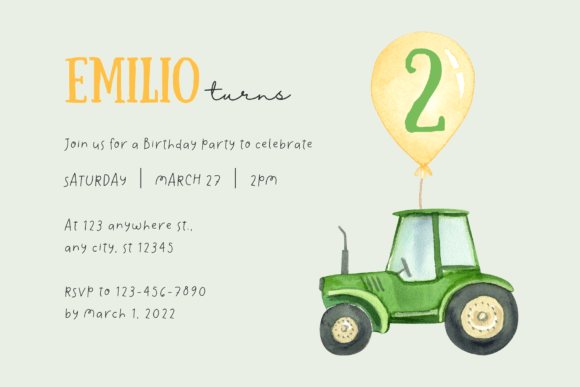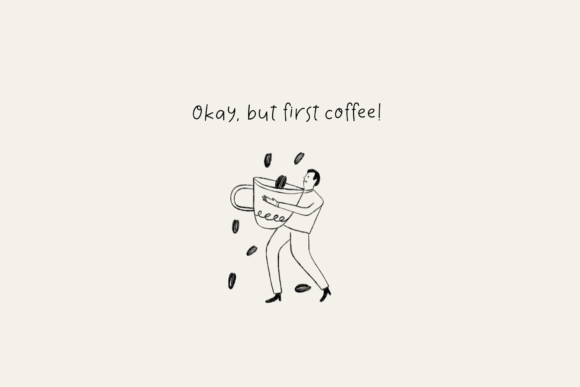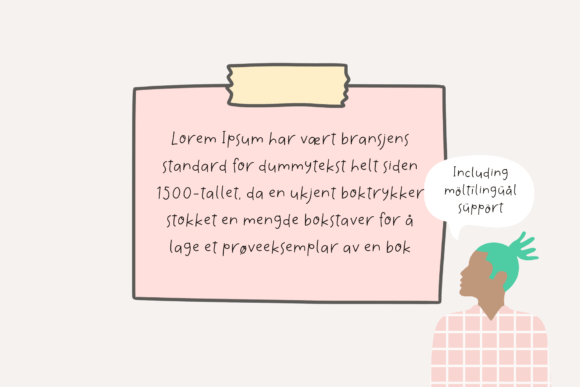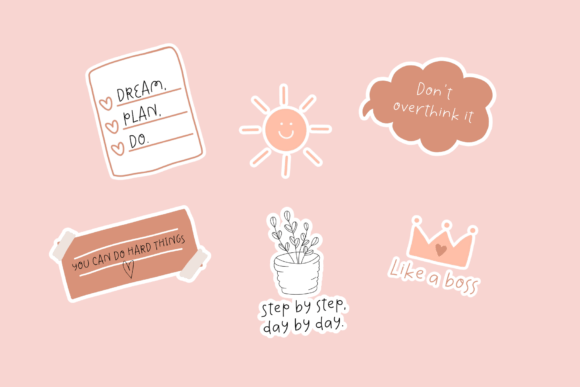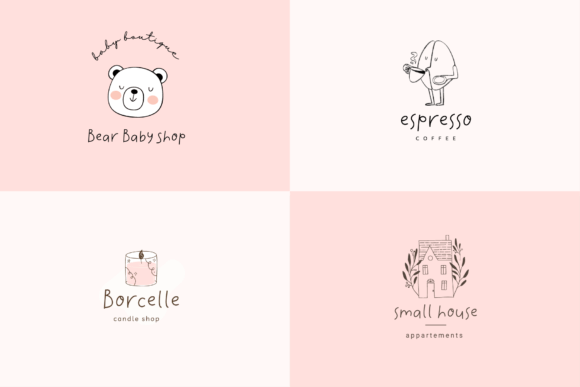
Introduction to Rhodes Memories Font
Have you ever sat down with a blank page, a cup of coffee, and a vision for your next creative project? For many of us, this moment is the spark that sets our imagination ablaze. As we begin to bring our ideas to life, the right design resources can make all the difference. That’s where the Rhodes Memories Font comes in – a delicate handwritten font that adds a touch of warmth and personality to any digital project.
Whether you’re planning a special event, jotting down notes for a new story, or creating invitations for a friend’s birthday, the Rhodes Memories Font is the perfect tool to elevate your design. With its high-quality, transparent background, this font is ideal for designers who want to add a touch of elegance to their work. And the best part? It’s available for free download, making it an accessible resource for creatives of all levels.
Key Features of Rhodes Memories Font
- Unique, vintage-inspired design suitable for various creative projects, including invitations, greeting cards, and scrapbook pages.
Honest Review: Rhodes Memories Font
I recently stumbled upon the Rhodes Memories Font while searching for a unique design resource for a creative project. I was immediately drawn to its elegant and vintage feel, making it perfect for a nostalgic-themed design.
The font offers a free download option, which is always a bonus for designers on a budget. I was able to download the font and use it immediately in my project. The high quality of the font is evident in its crisp lines and smooth curves.
Here are some of the things that work well with the Rhodes Memories Font:
- ✨ Unique and elegant design
- ✨ Perfect for nostalgic-themed designs
- ✨ High-quality images with transparent background
- ⚠️ Limited font styles (only a few options available)
- ⚠️ Not suitable for modern or futuristic designs
Overall, I’m impressed with the Rhodes Memories Font. While it may not be suitable for every design project, it’s a great addition to any designer’s toolkit. With its unique design and high-quality images, it’s definitely worth considering for your next creative project.
Rhodes Memories Font
Introduction to Rhodes Memories Font
Rhodes Memories Font is a high-quality design resource ideal for various creative projects. This font offers a unique and elegant style, perfect for adding a touch of sophistication to your designs.
Tips for Getting the Most Out of Rhodes Memories Font
To get the most out of Rhodes Memories Font, use it with a transparent background to create a beautiful and elegant design. Experiment with different font sizes and styles to create a unique look.
The Rhodes Memories Font is ideal for various creative projects, including:
- Blog posts and social media graphics
- Photography captions and quotes